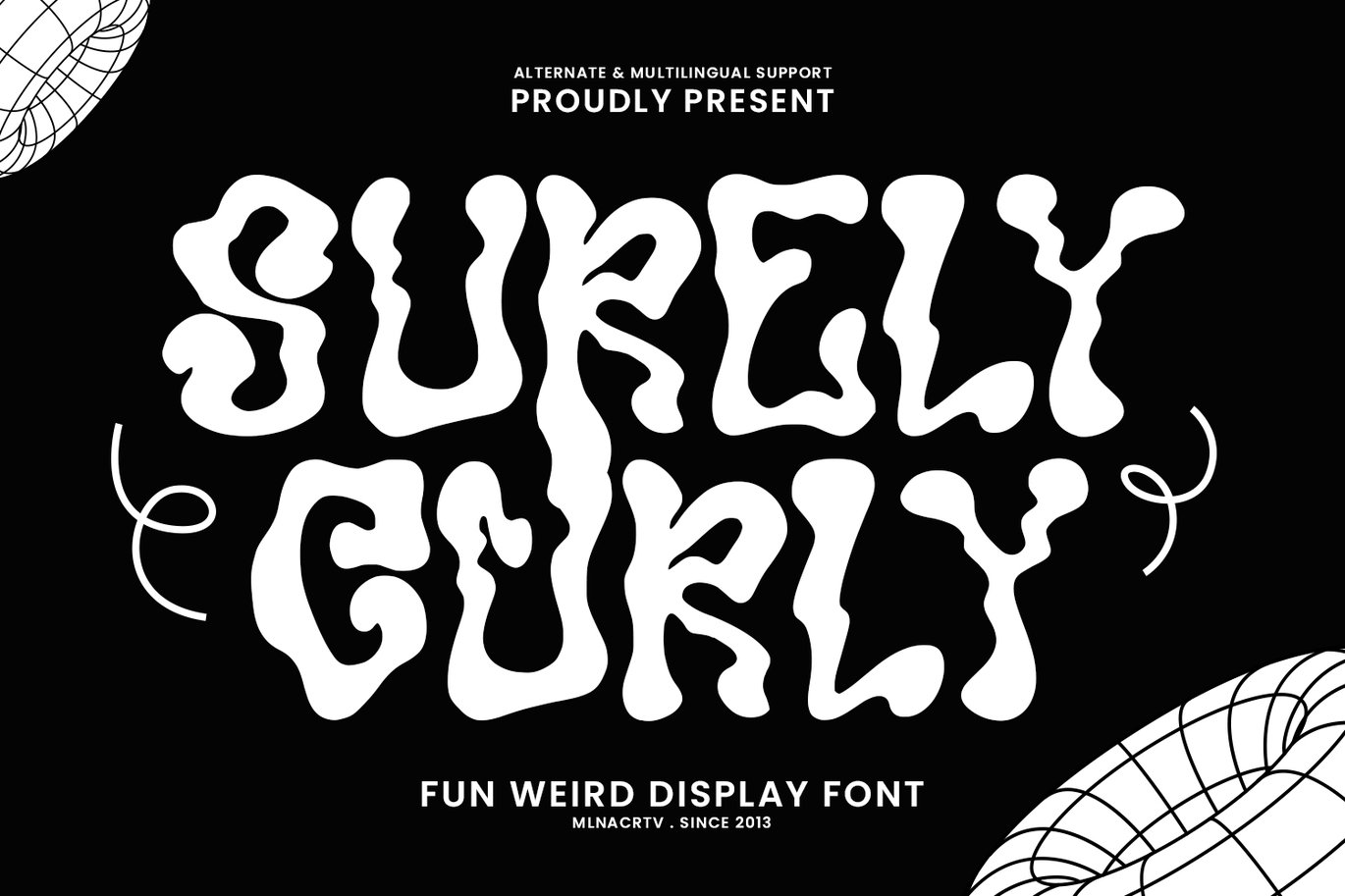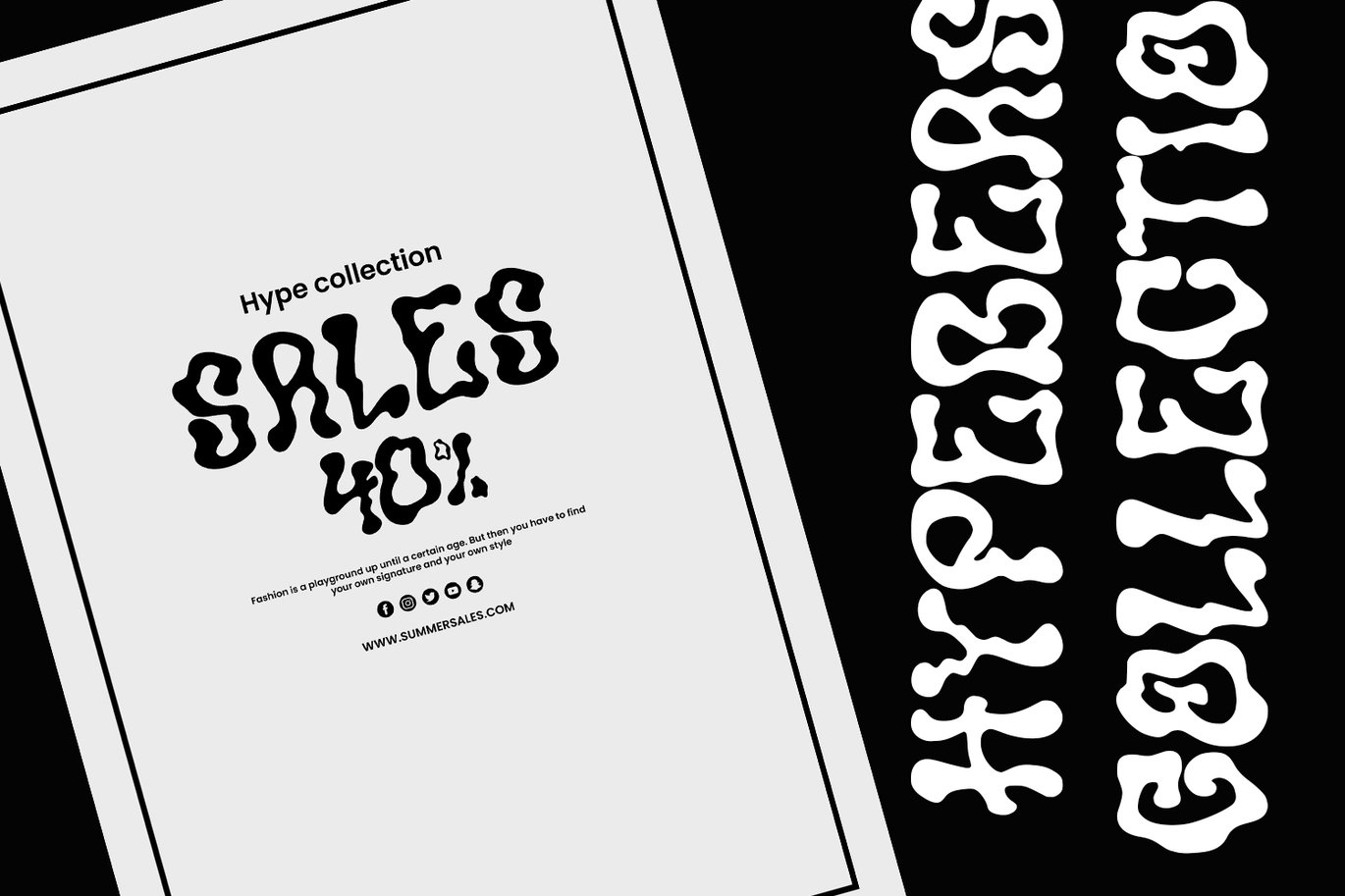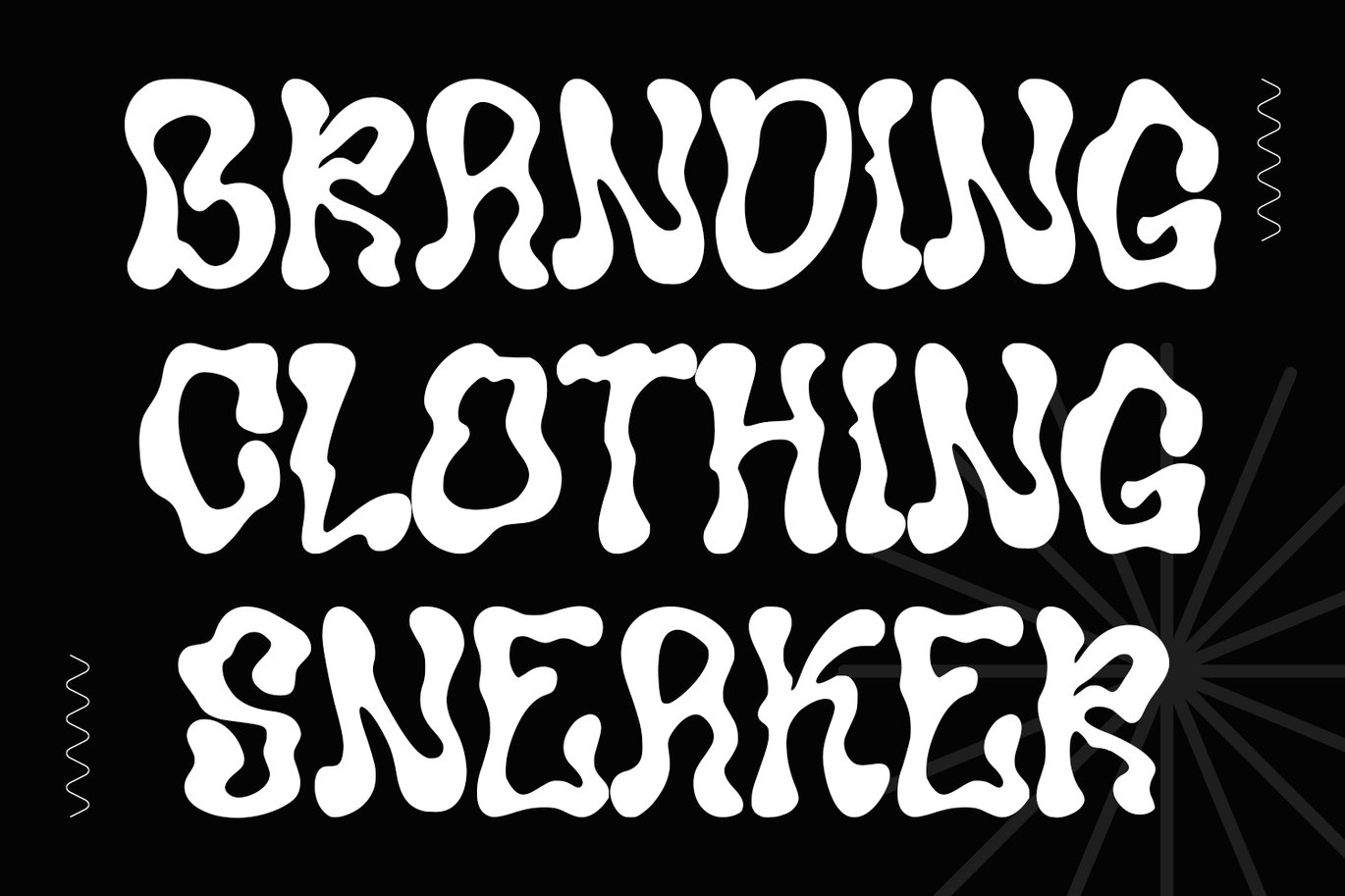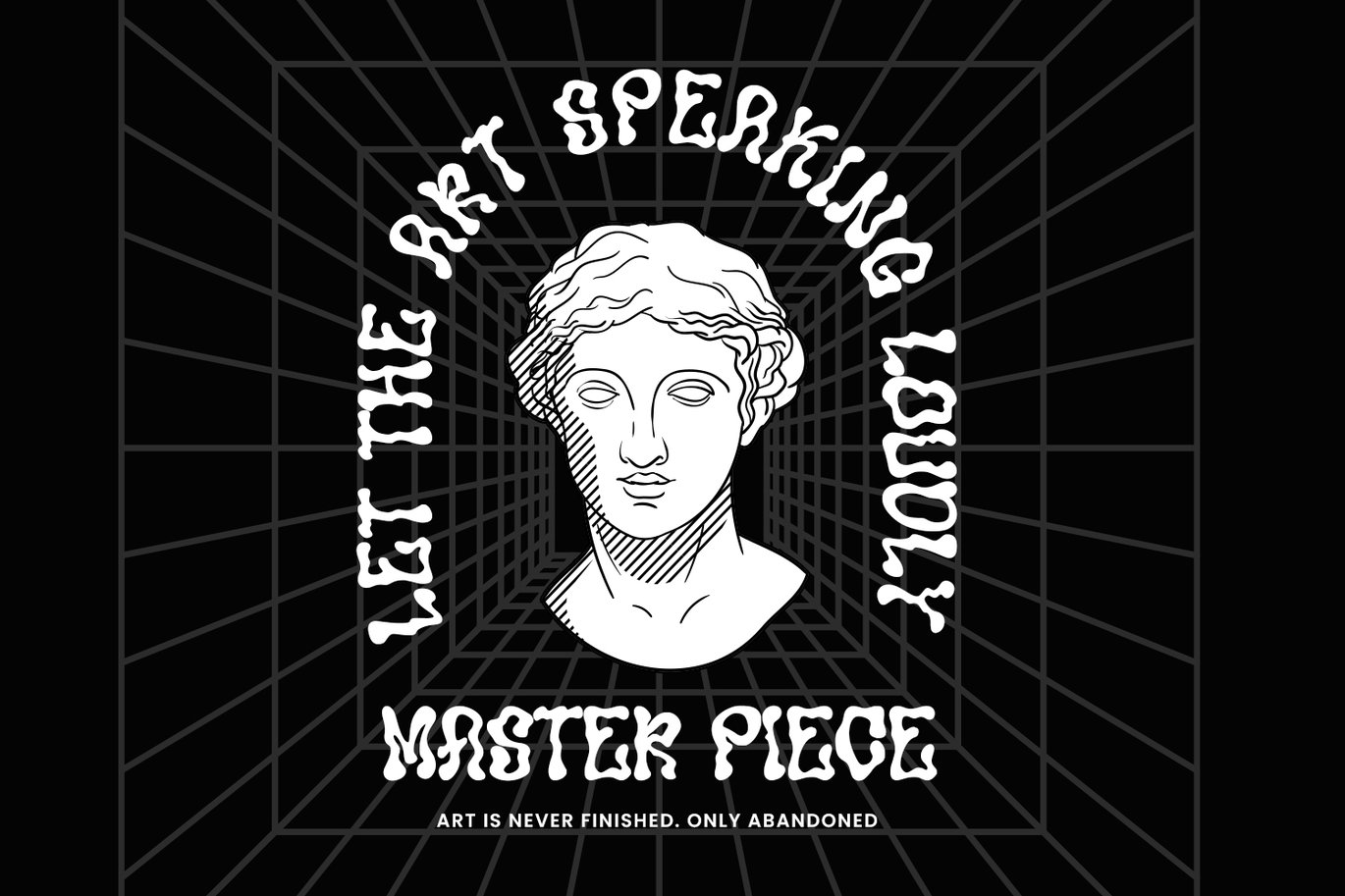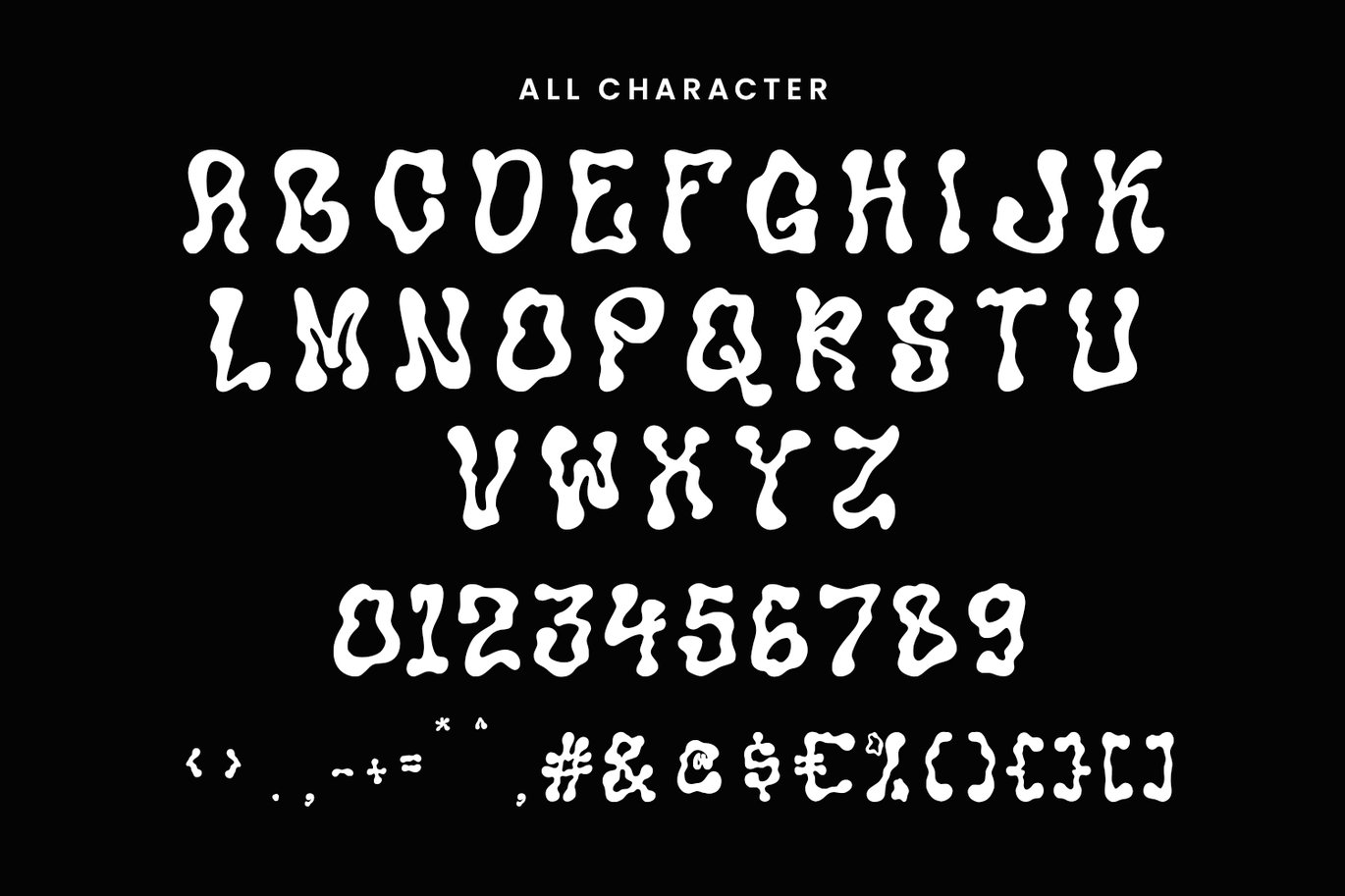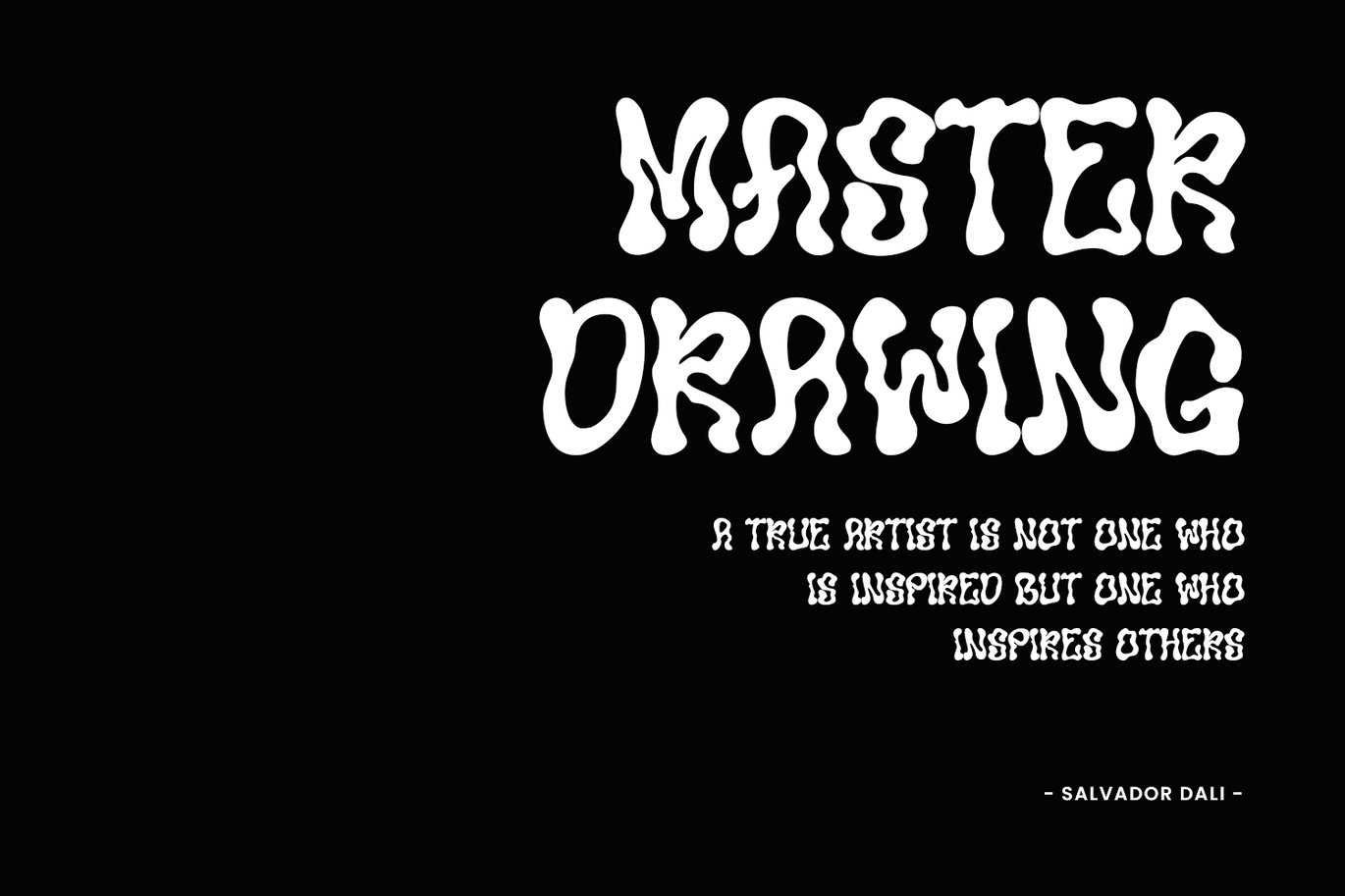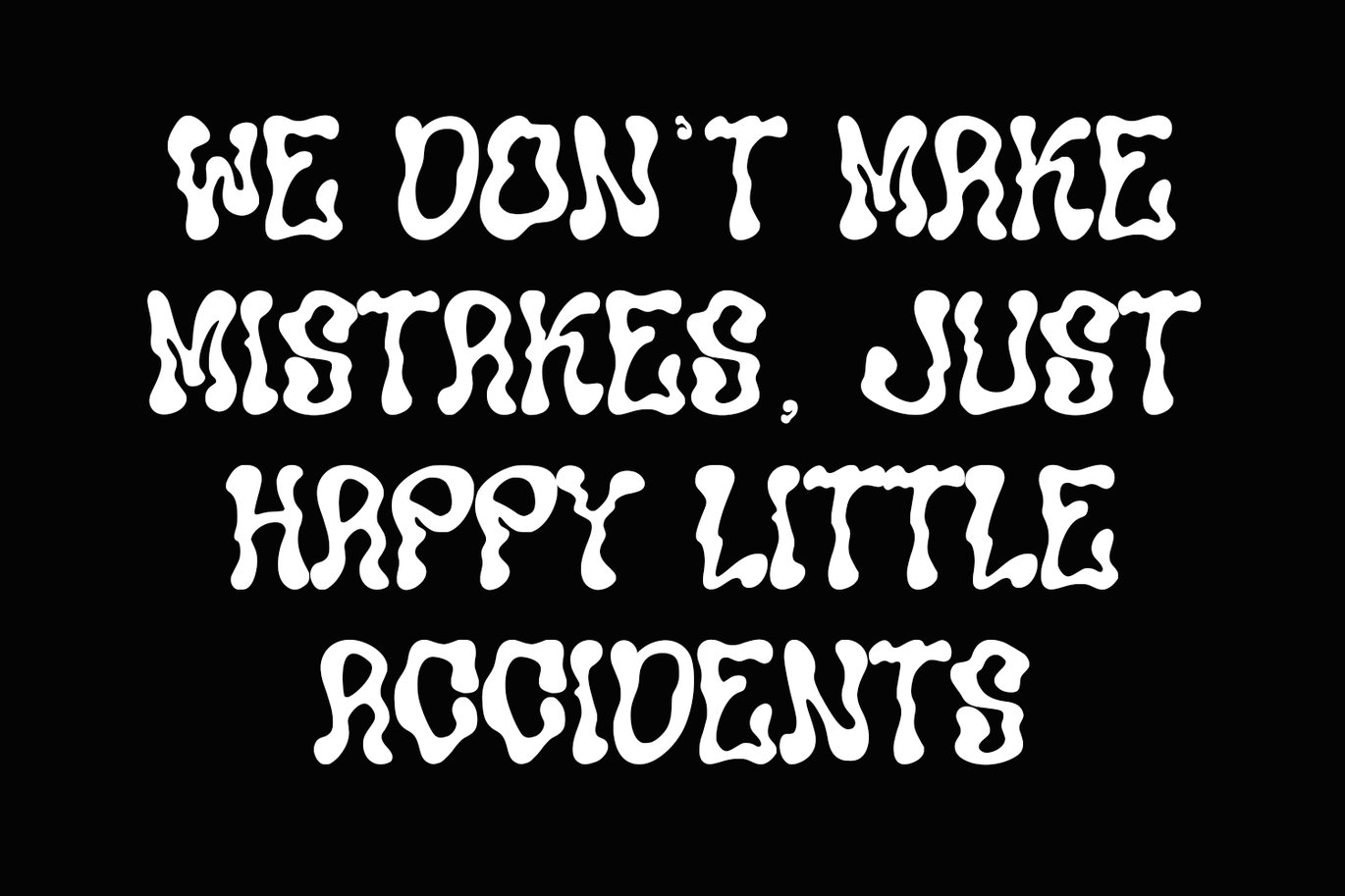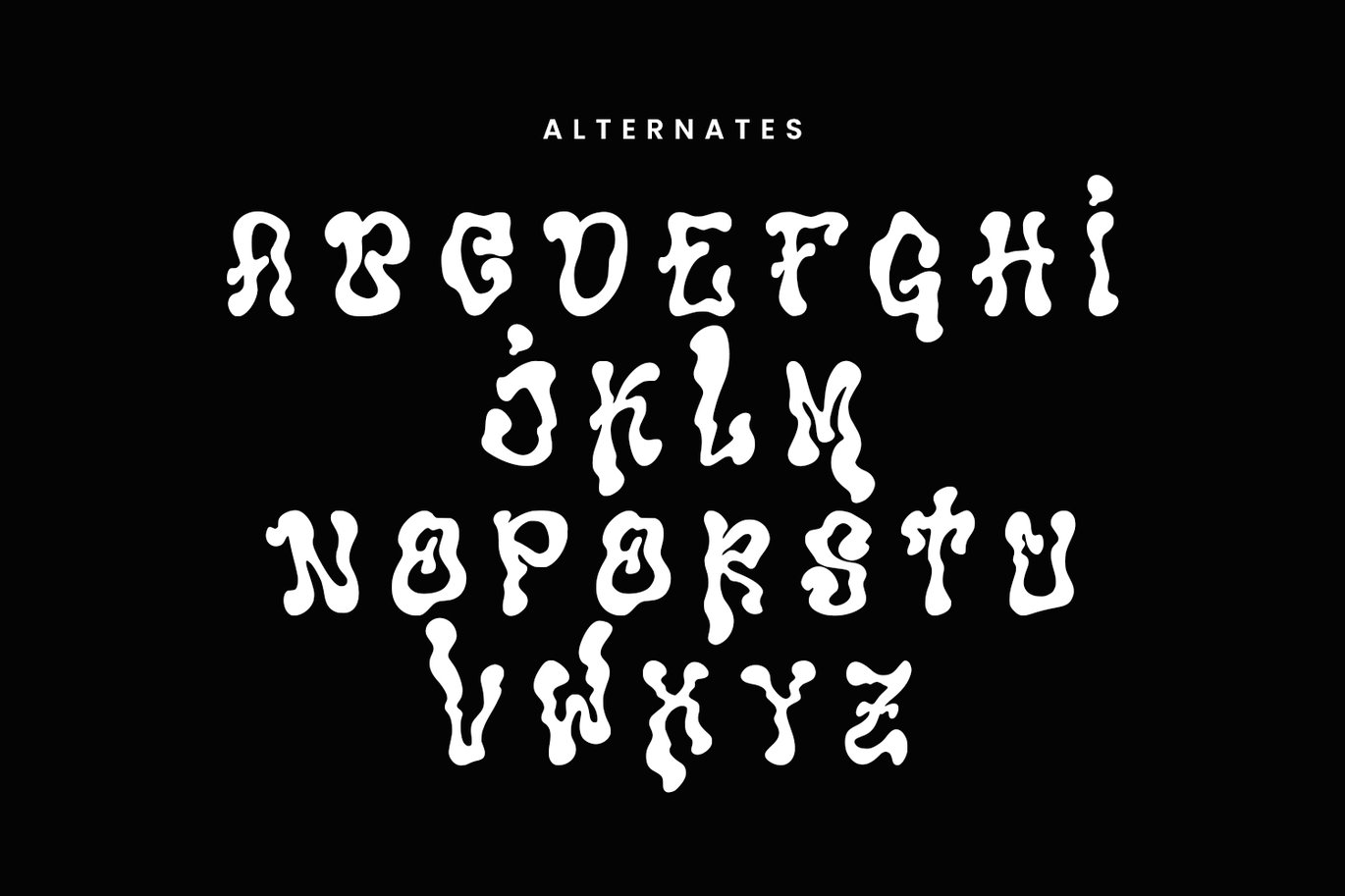
Surely Curly Fun Decorative Display Font
Surely Curly is a fun decorative display font. With bold condensed stroke and fun character. To give you an extra creative work, Surely Curly font support multilingual more than 100+ language. This font is good for logo design, Social media, Movie Titles, Books Titles, a short text even a long text letter and good for your secondary text font with signature or script typeface. Make a stunning work with Surely Curly font.